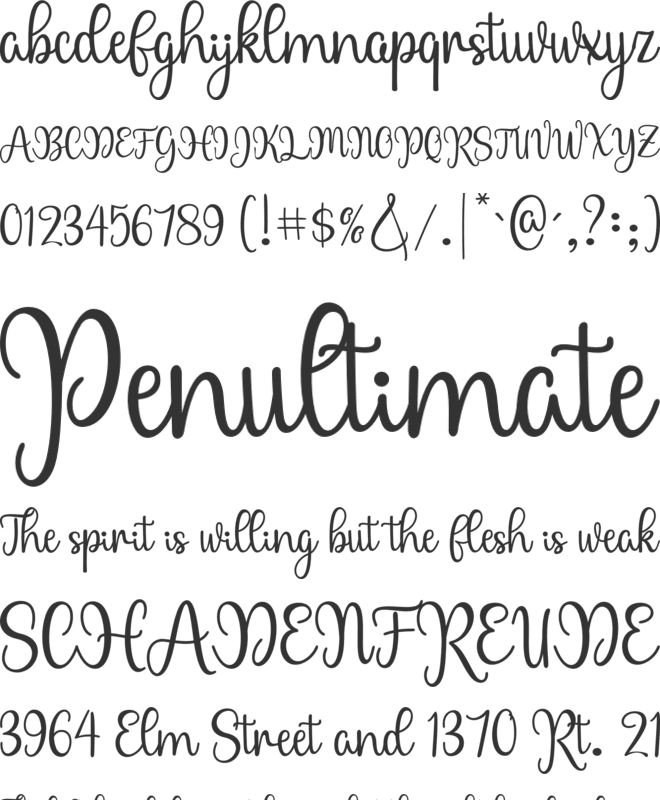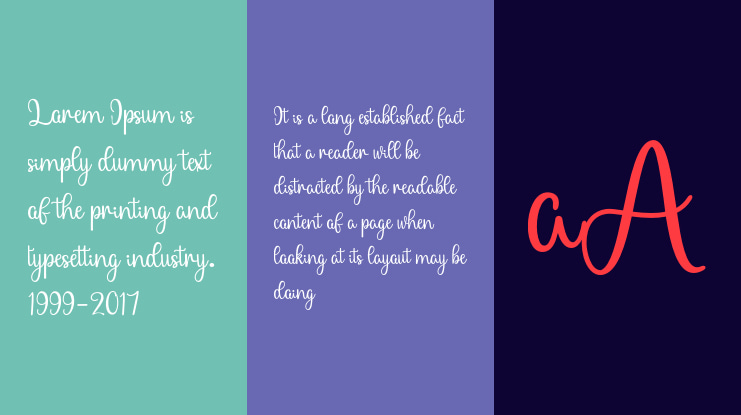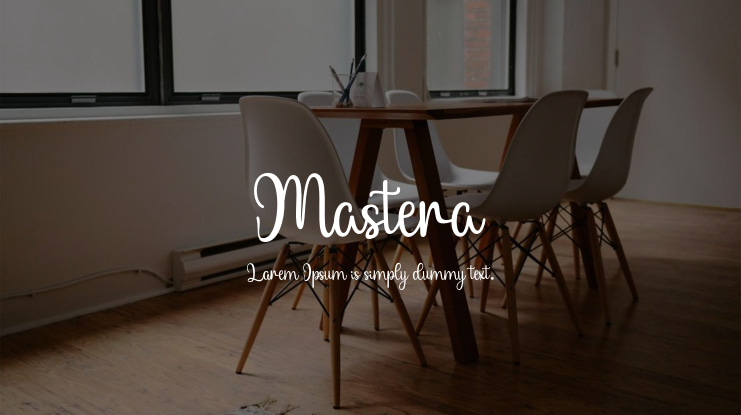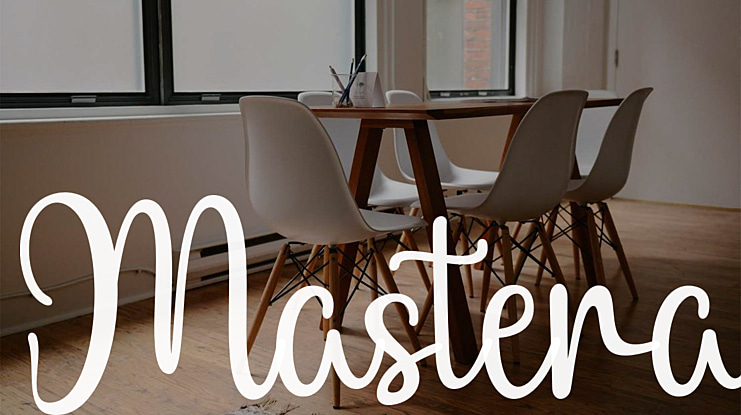
Mastera Font
Introducing Mastera, a charming and delightful calligraphy font that exudes romance. With its enchanting characters gracefully dancing along the baseline, this typeface possesses a casual yet sophisticated aura. Moreover, it is PUA encoded, ensuring effortless access to all the charming glyphs and elegant swashes it offers. Discover the magic of Mastera by clicking the link below: